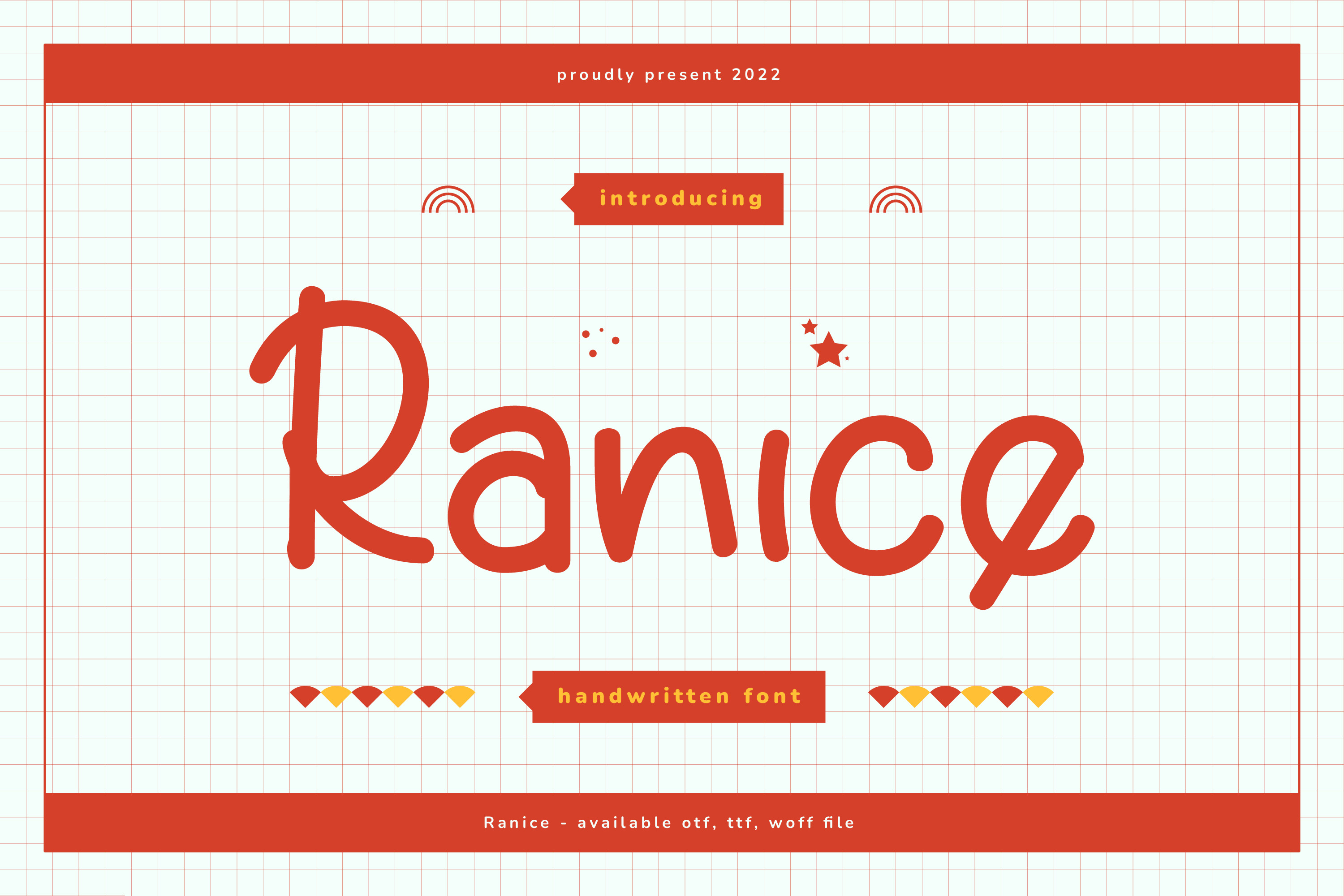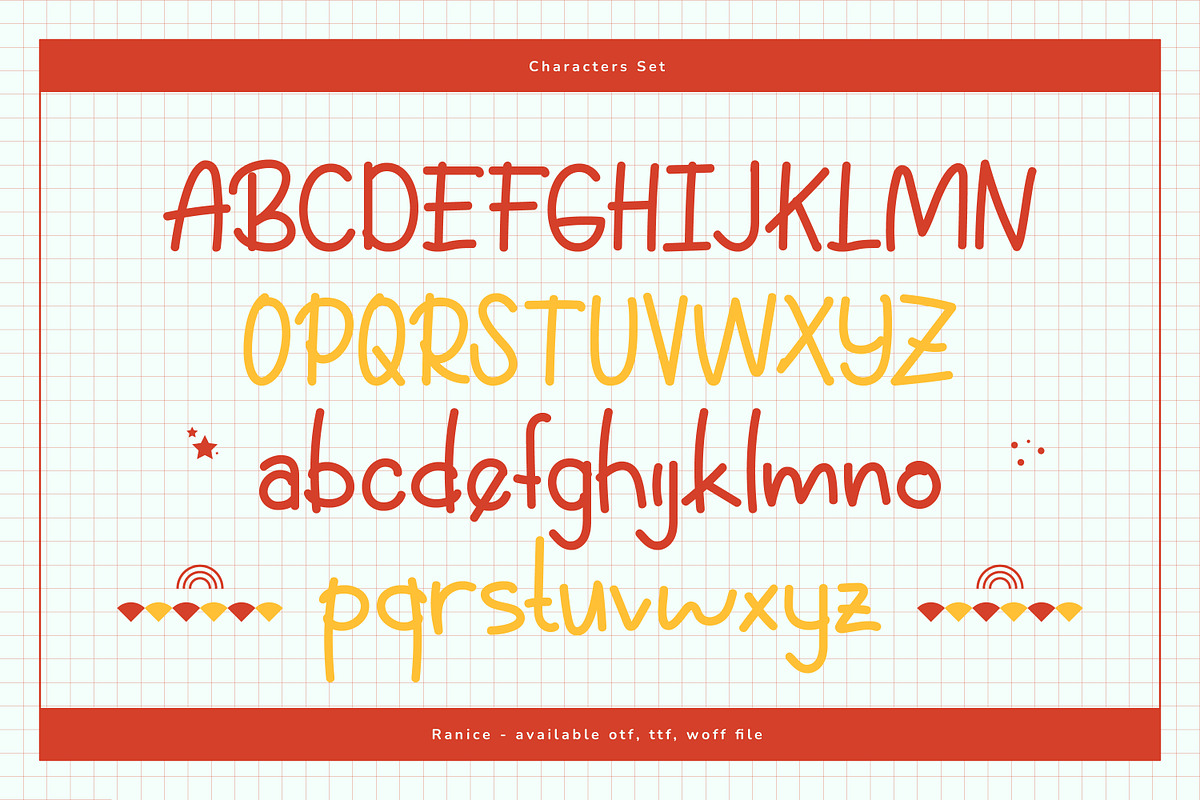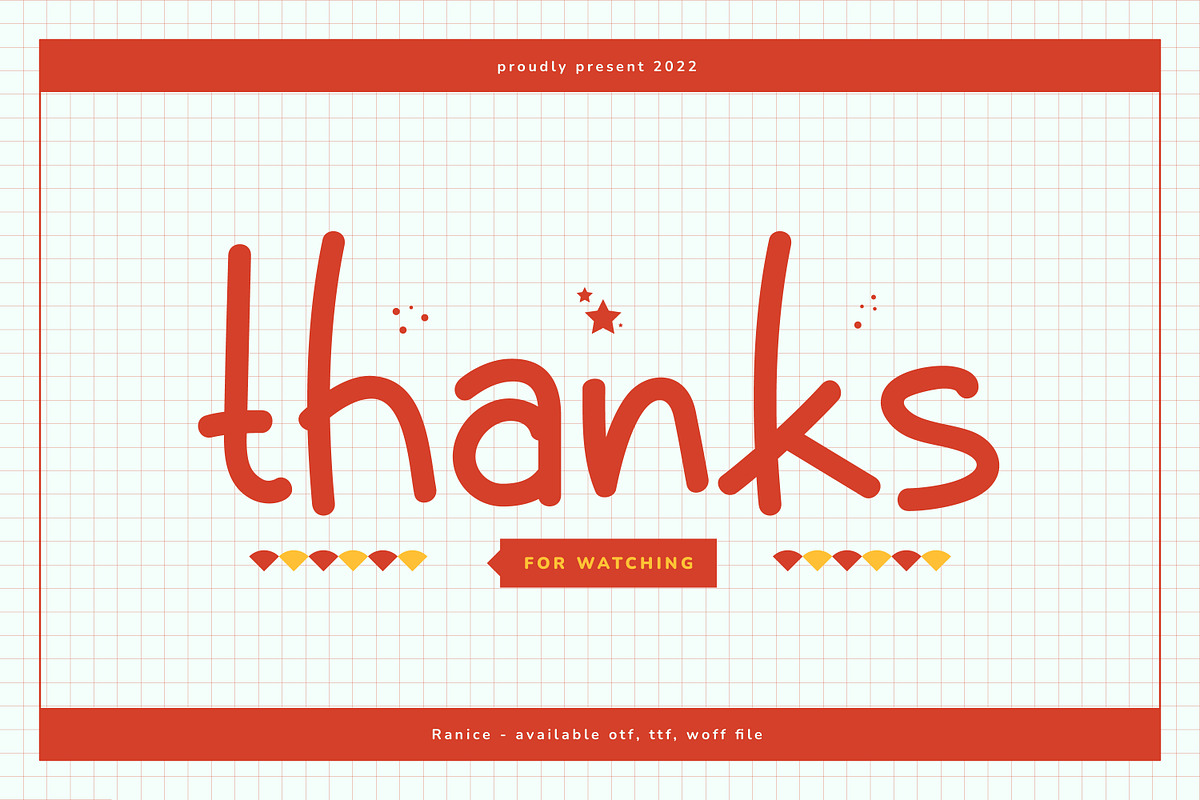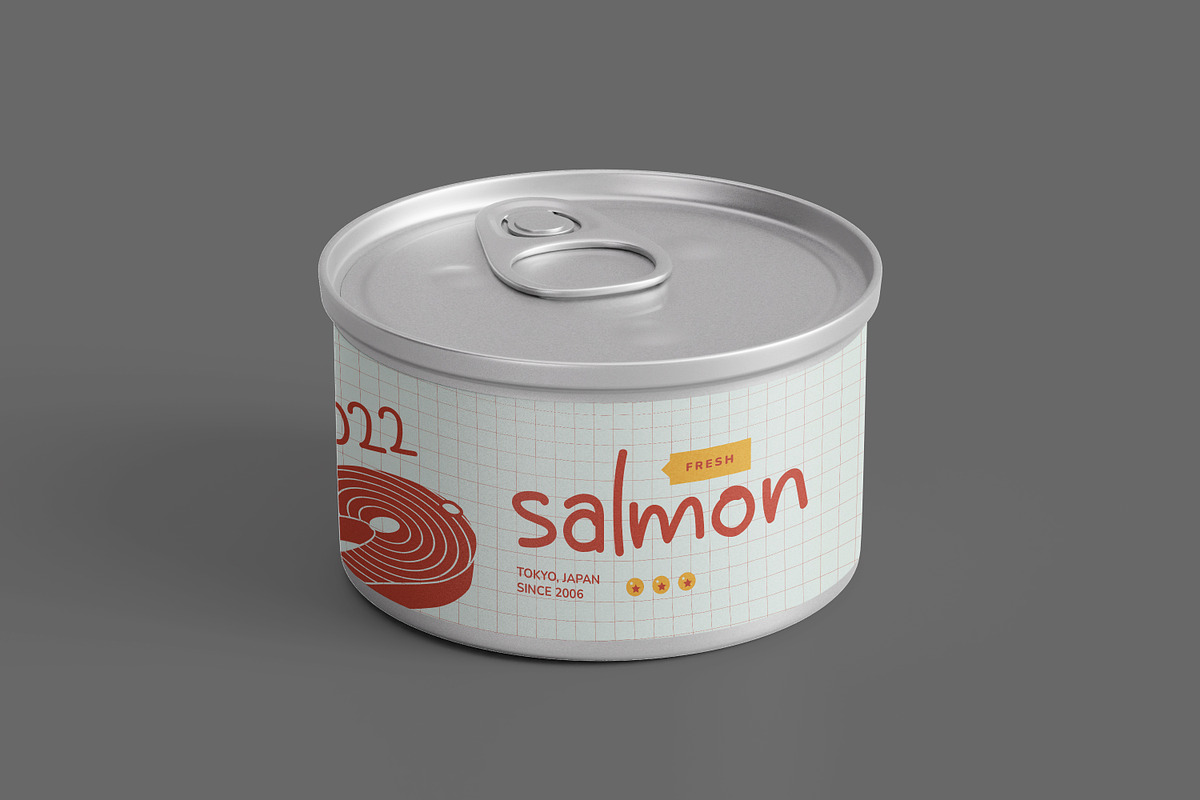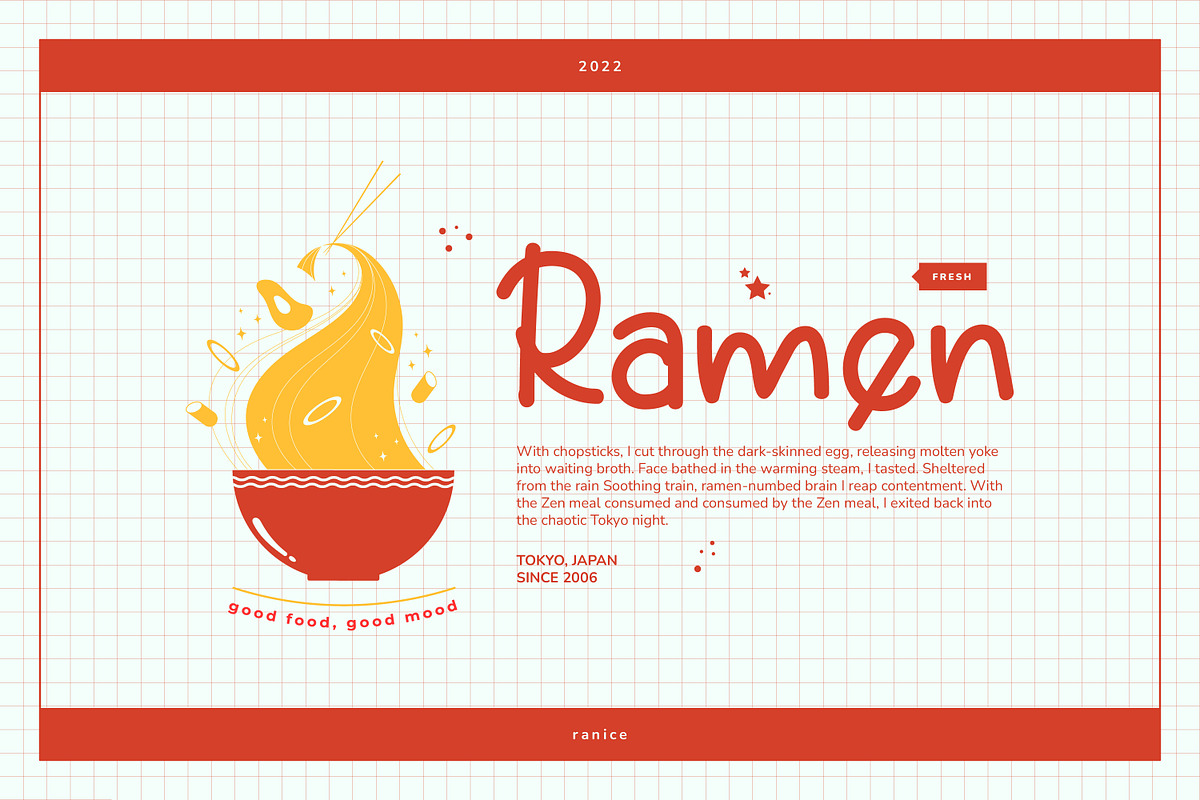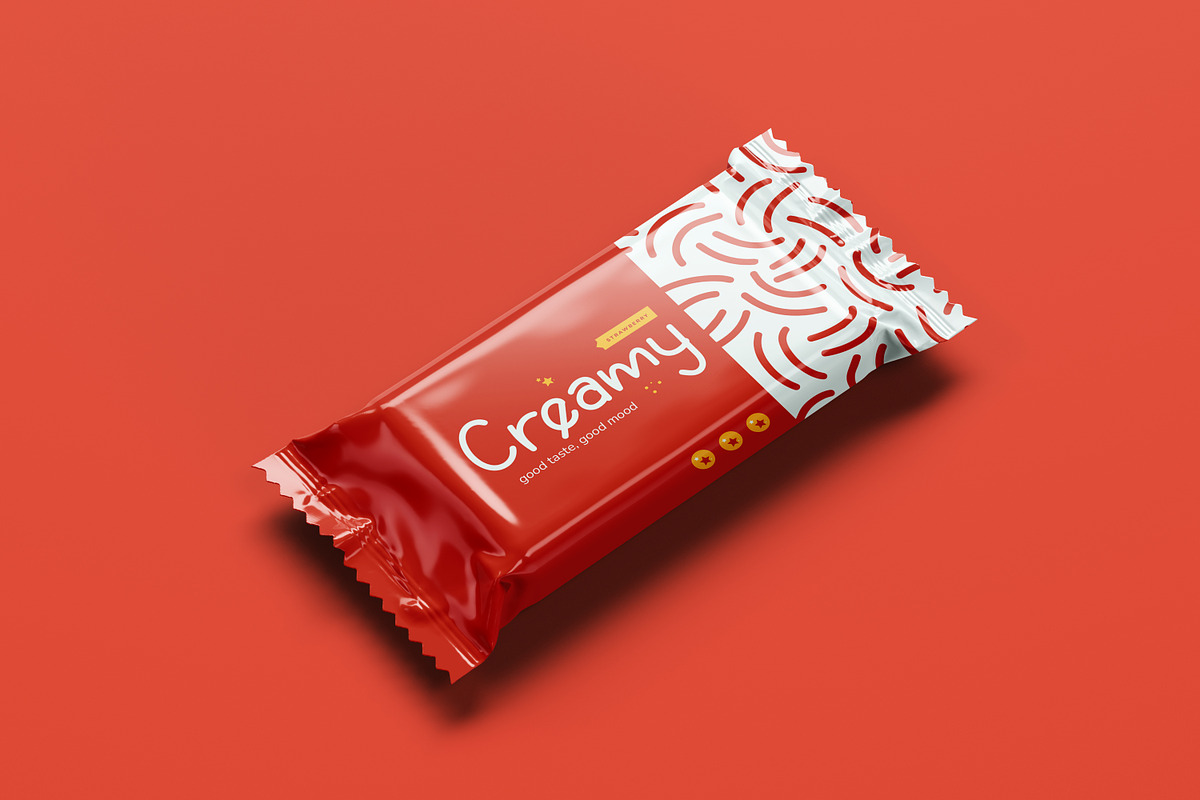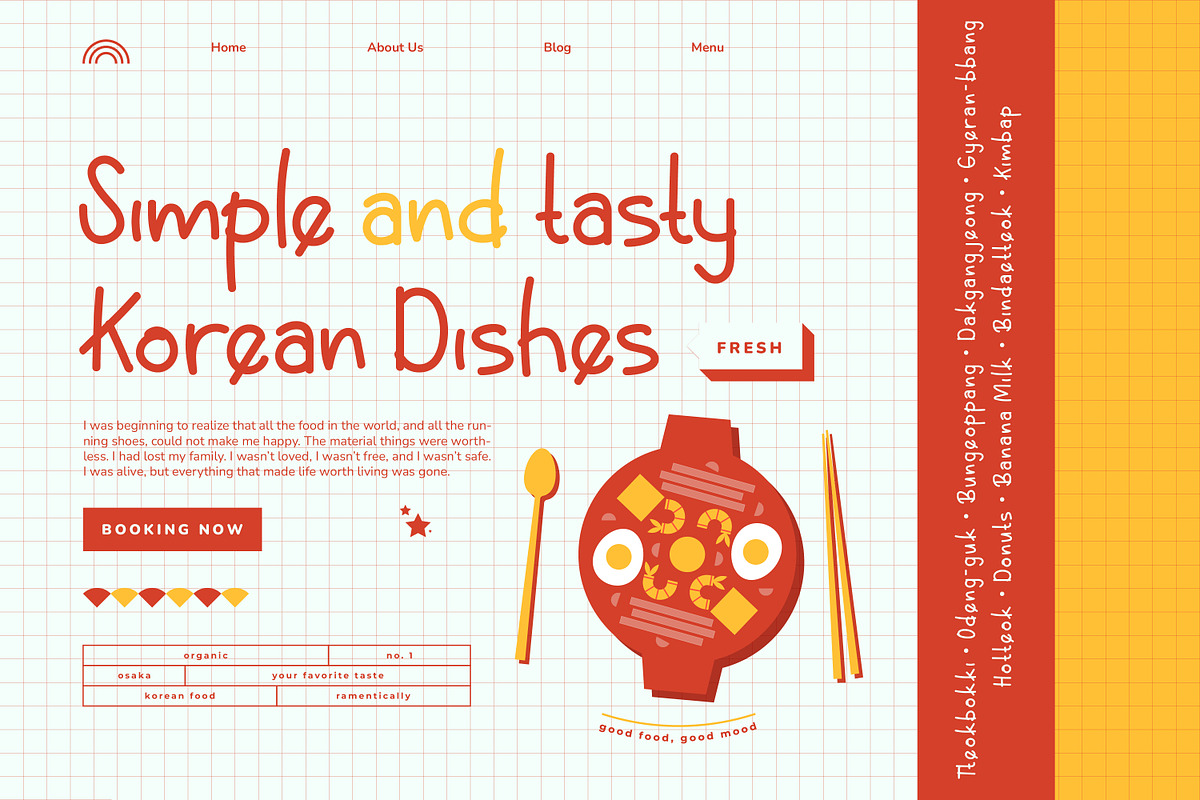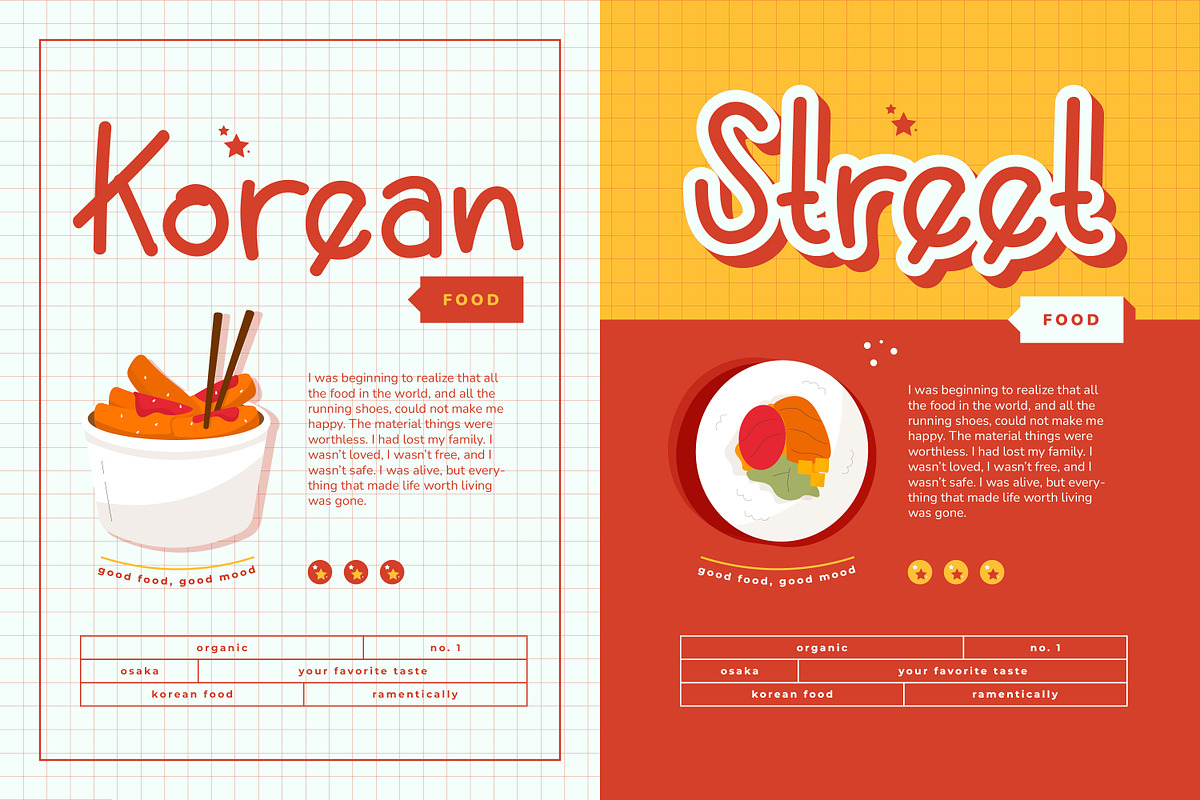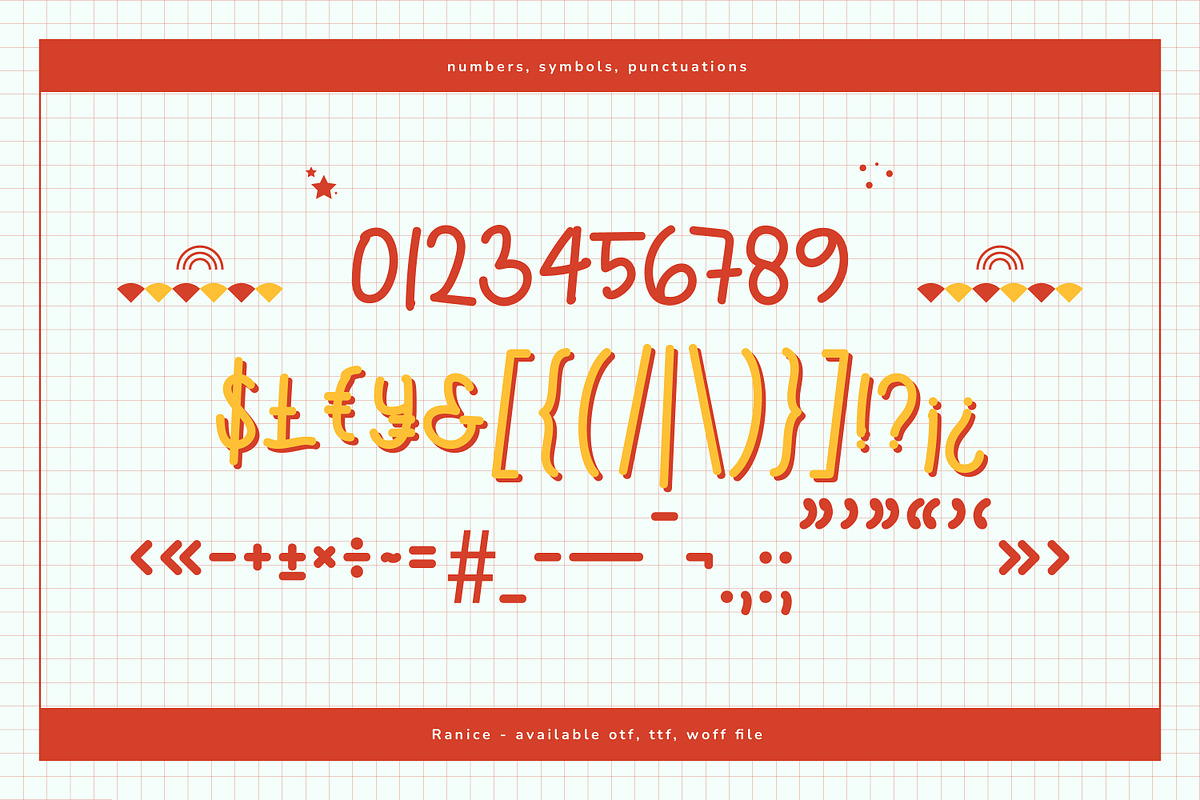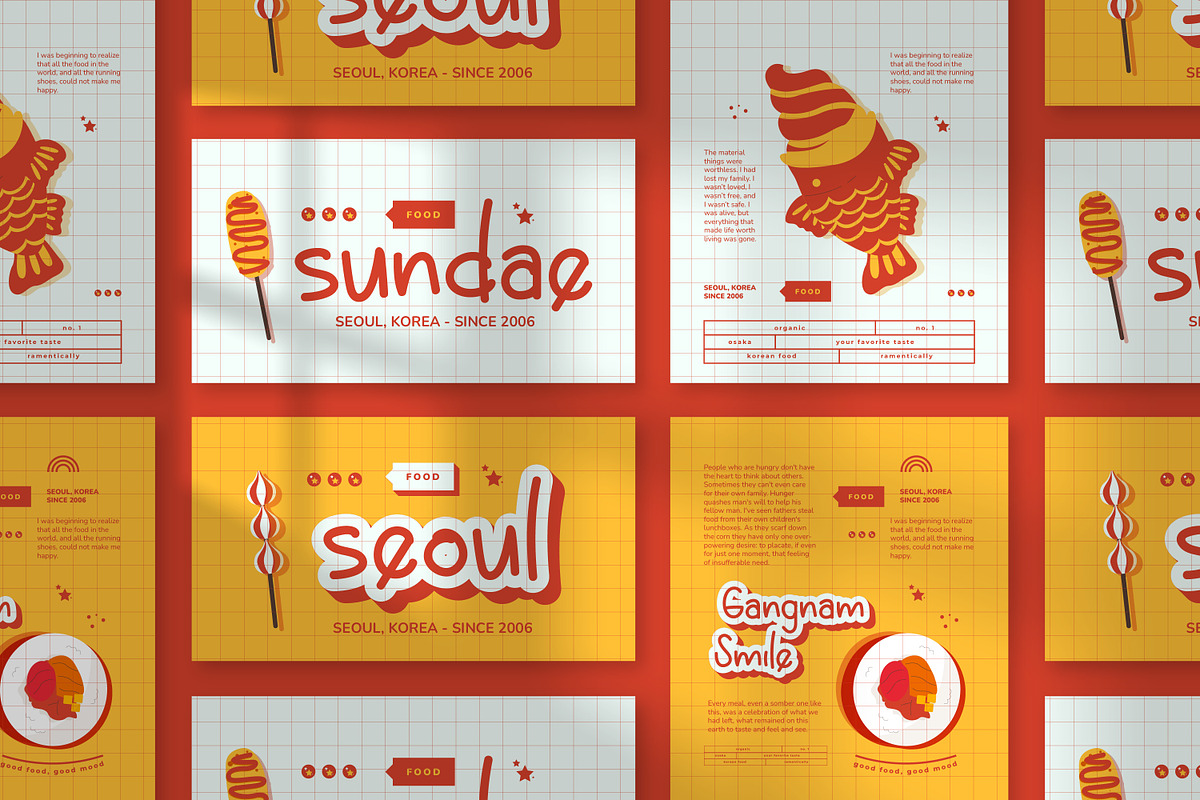
Ranice Casual Handwritten Font
Ranice feels equally charming and casual. It looks stunning on wedding invitations, thank you cards, quotes, greeting cards, logos, business cards, and every other design which needs a handwritten touch.
- OpenType Features (Stylistic Set)